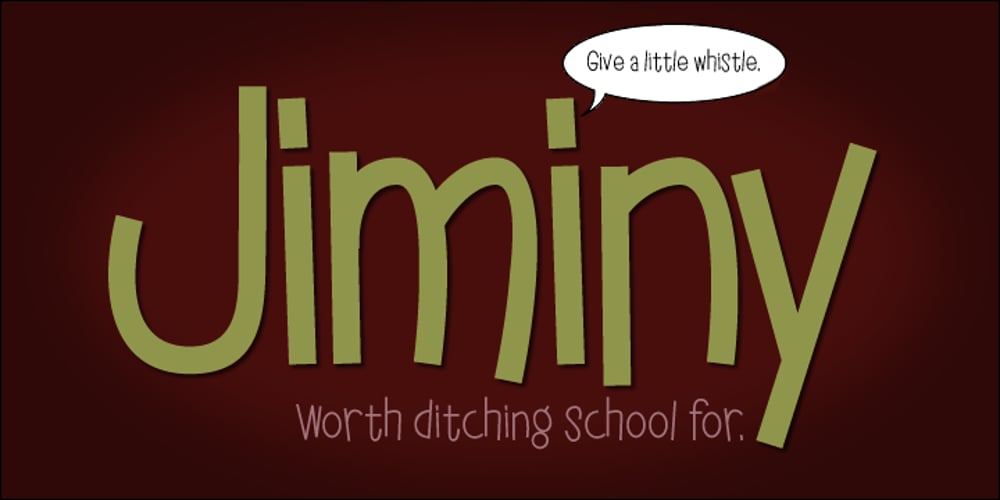
Jiminy Font Family was designed by Randy Harris and published by Just My Type. Jiminy contains 2 styles and family package options. Come on… You want Jiminy, don’t you? It’s FUN! And carefree! It will turn any project into something enjoyable. You really must have it! But don’t just listen to me, Mr. Cat and Mr. Fox. Let your conscience be your guide…